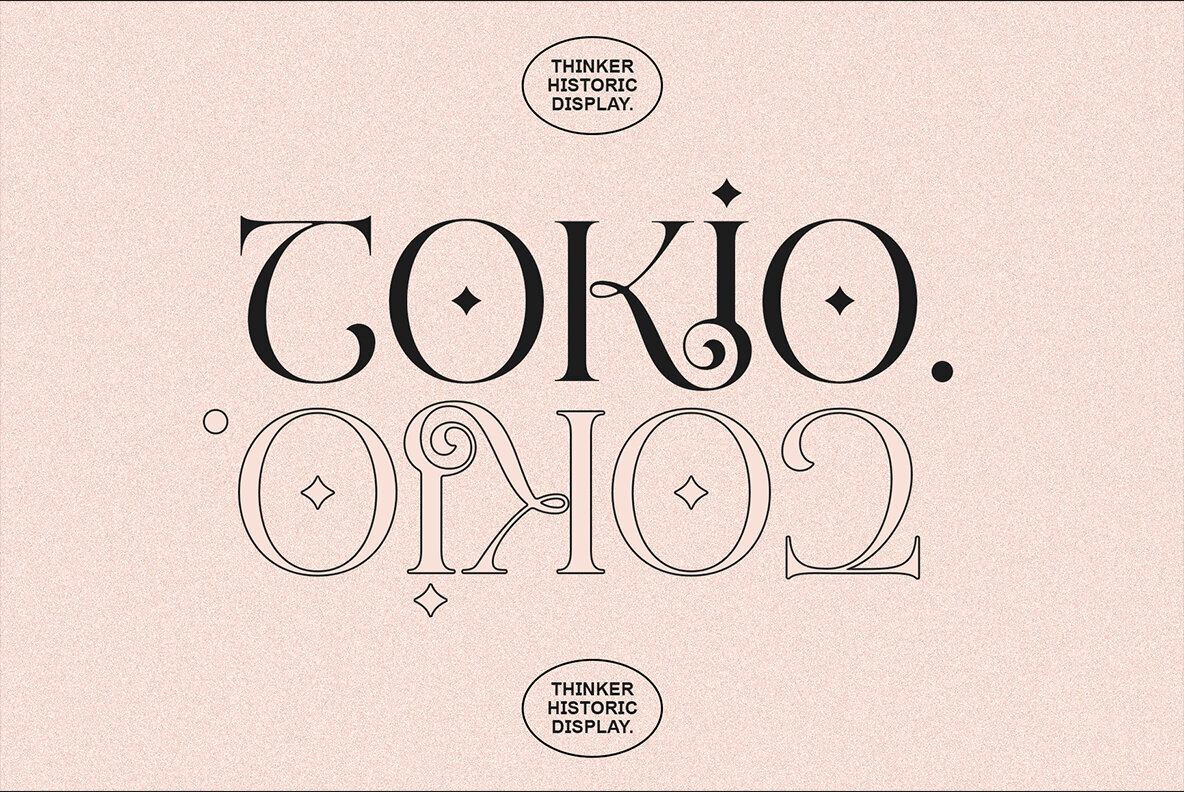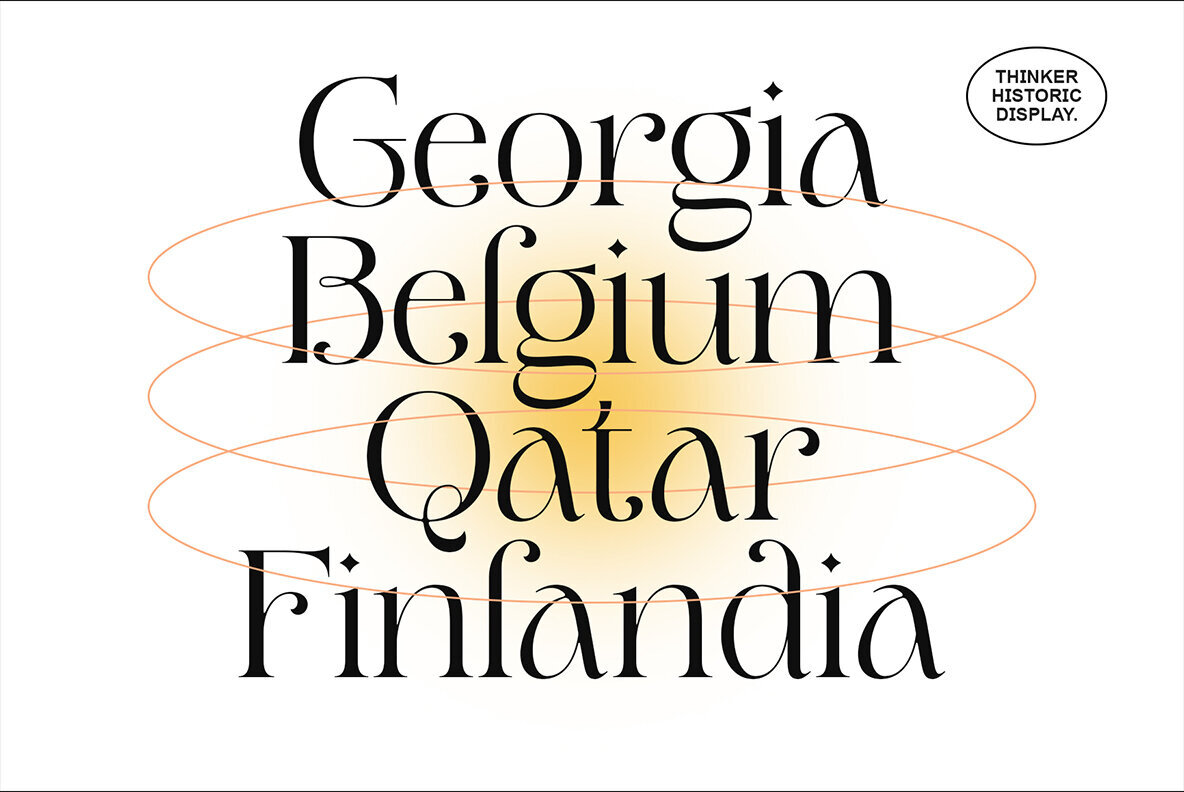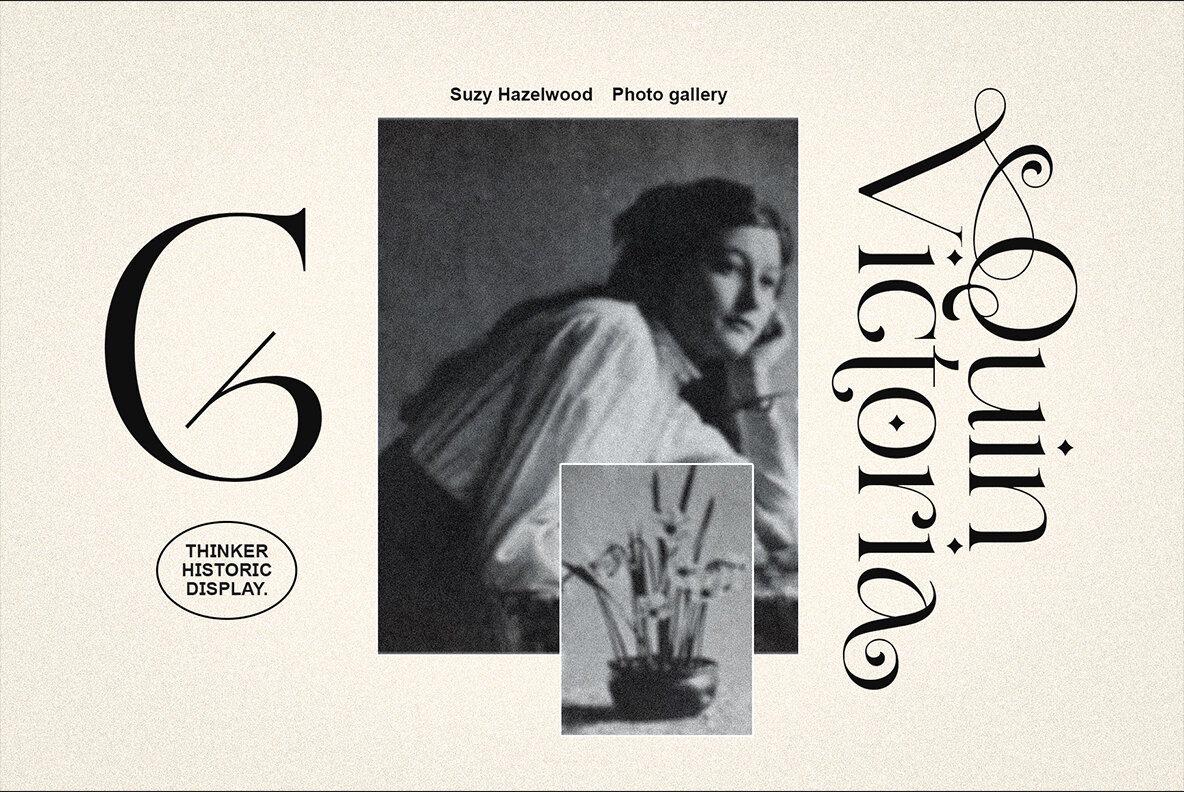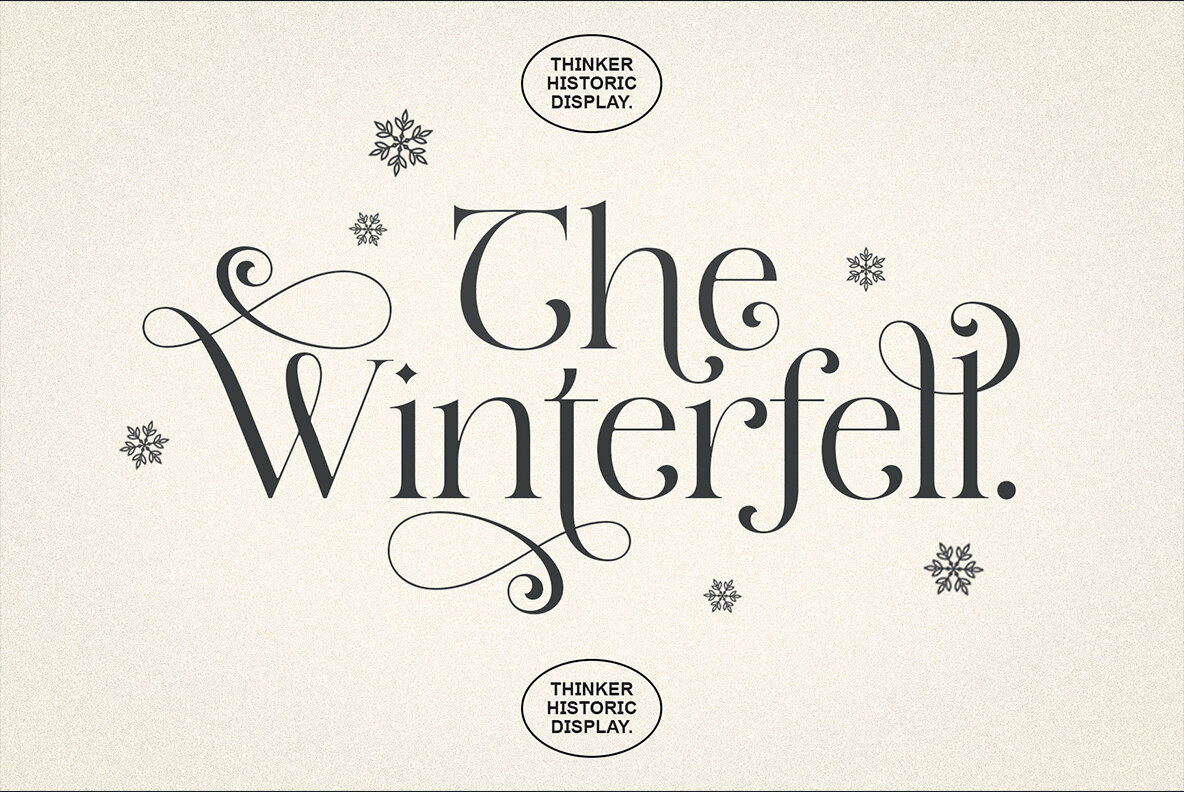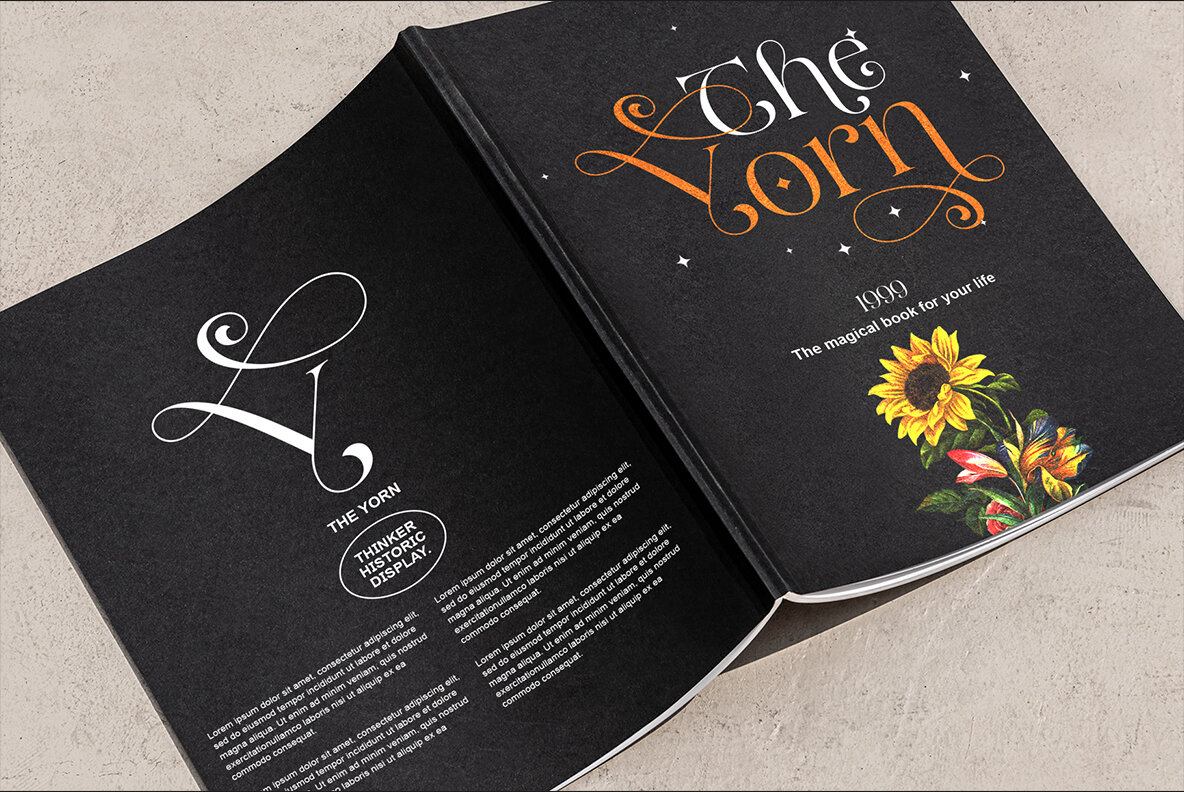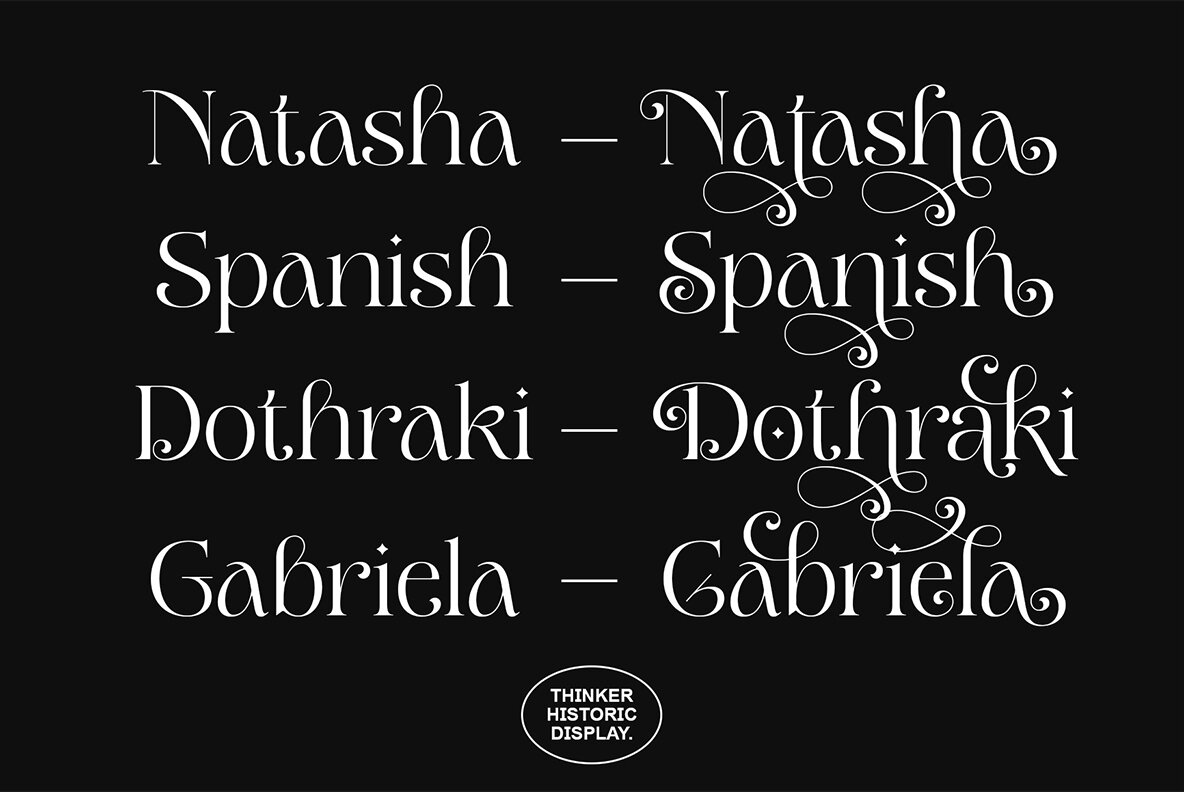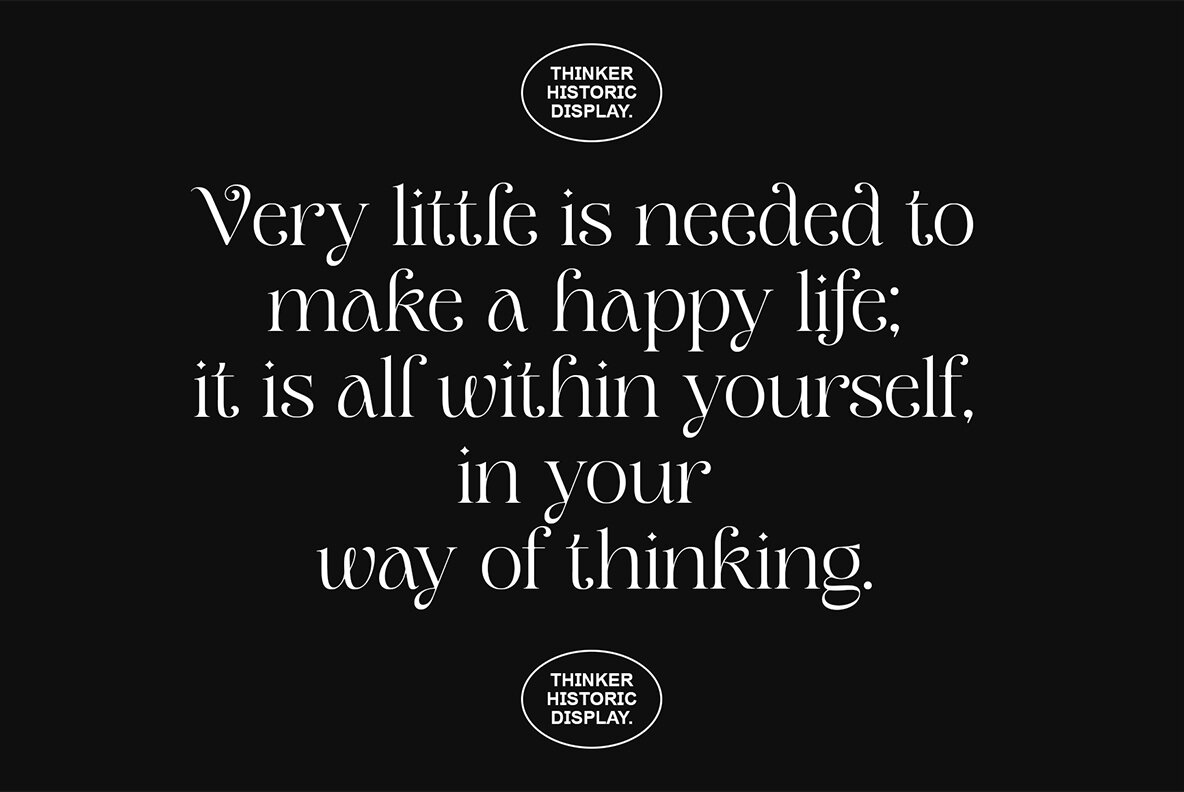
Thinker Historic: Timeless Serif Elegance
Thinker Historic brings a distinct charm to your design projects with its classic serif display infused with feminine elegance. This typeface, embodying a seamless blend of tradition and style, enhances projects such as logos, branding, and invitations. Its versatile nature also complements wedding designs, social media graphics, and much more.
• Uppercase
• Lowercase
• Numerals
• Functional Ligatures
• Alternates
• Multilingual Support